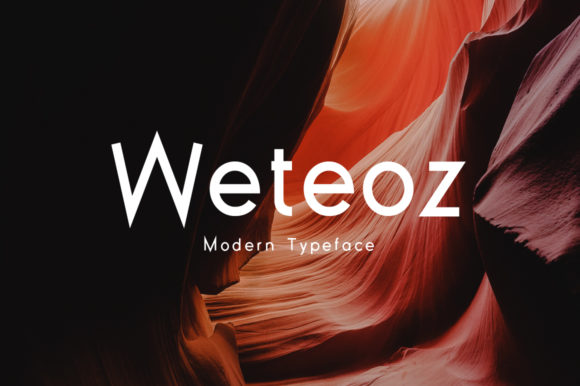
Feel the Bold Strokes of Urban Aesthetics with Weteoz Font: Empower Your Designs with a Dynamic Flair
In the world of digital artistry, typography reigns supreme, shaping the visual language that captivates audiences and leaves a lasting impact. Amidst the sea of fonts, Weteoz Font emerges as a bold and contemporary masterpiece, ready to transform your designs into captivating expressions of urban flair.
As a creation of the renowned Spanking Fonts, Weteoz Font embodies a striking balance between readability and visual appeal, ensuring that your messages not only resonate but also leave a visual imprint. Its distinct character shines through in every letterform, adding a touch of modernity and sophistication to your creative endeavors.
Unleash the Power of Weteoz Font for:
- Logos: Craft logos that command attention and establish a strong brand identity. Weteoz Font's bold strokes and striking presence will make your logos stand out in a crowded digital landscape.
- T-shirts: Turn ordinary tees into wearable statements. With Weteoz Font, your T-shirt designs will radiate a unique urban edge, making each piece a conversation starter.
- Papers and Print Designs: Elevate your printed collateral with Weteoz Font's clean lines and sharp edges. Create business cards, invitations, and brochures that leave a lasting impression.
- Website Headers: Capture the essence of your website with a Weteoz Font header. Its dynamic character will set the tone for your online presence, captivating visitors from the moment they land on your page.
- Photo Frames: Transform your cherished memories into framed masterpieces. Weteoz Font will add a touch of elegance and modernity to your photo frames, preserving your moments in a visually striking way.
- Flyers and Posters: Create flyers and posters that demand attention and leave a lasting impact. Weteoz Font's bold presence will ensure your messages are seen and remembered.
- Music Covers: Give your music releases a visually captivating edge with Weteoz Font. Its urban aesthetics will perfectly complement your music's energy and style, creating a cohesive and unforgettable package.
- And Beyond: Unleash your creativity and explore endless possibilities with Weteoz Font. Its versatility knows no bounds, making it perfect for book covers, social media graphics, product packaging, and so much more.